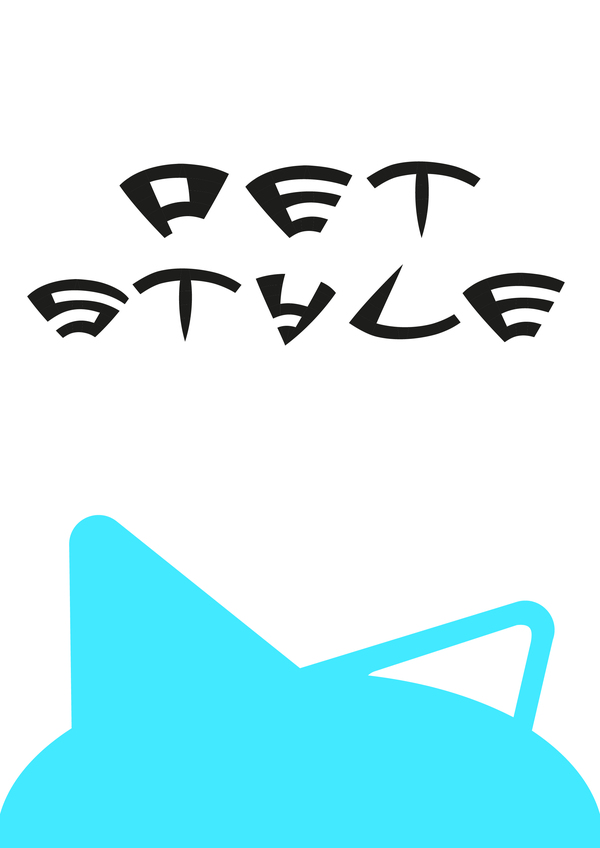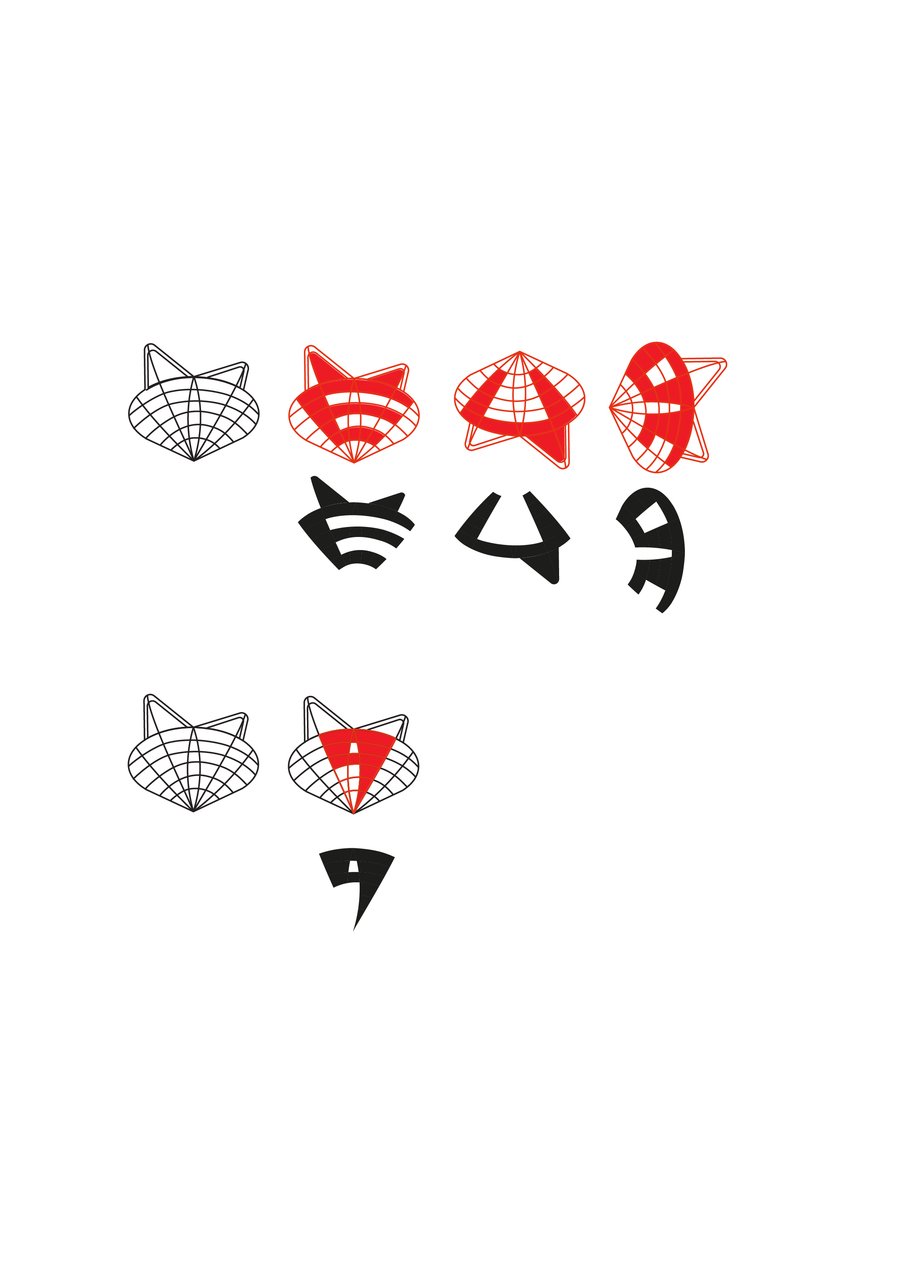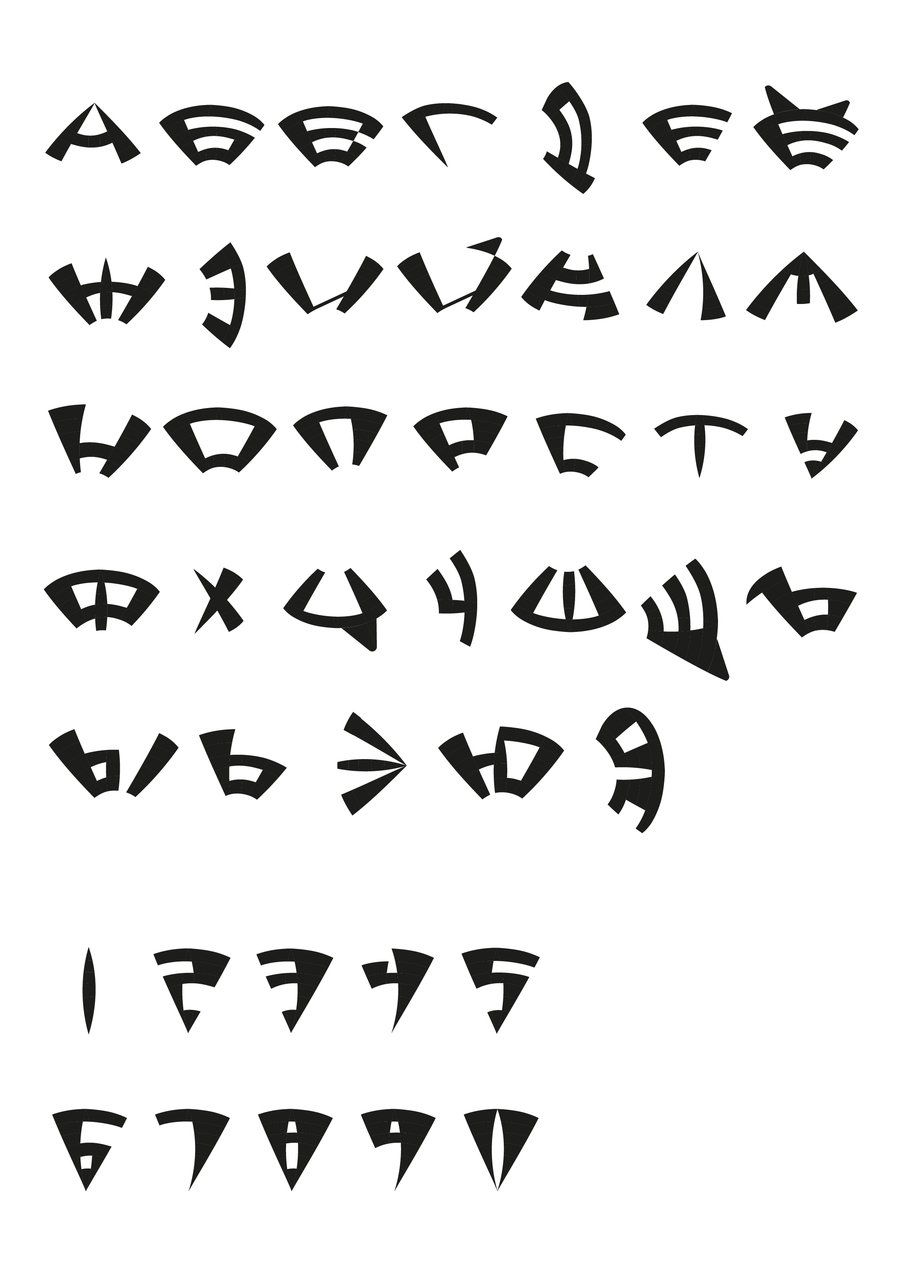
PET STYLE font
It is designed for the Russian launch company PetsLab, a company that produces technical products for animals ranging from feeders and fillers to medical equipment for veterinary science.
The font grid is based on a startup logo that depicts a cat. So all the letters a priori are connected to animals, reflecting the whole company.